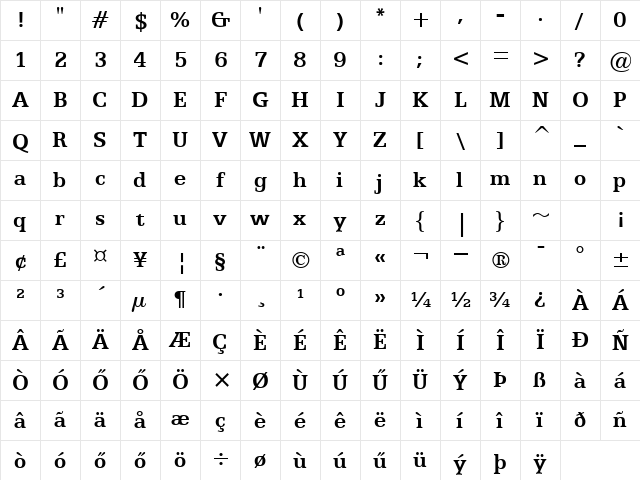
H_Egyptian 505 BT Bold
Complete H_Egyptian 505 BT Bold glyph index. Displaying only characters natively supported by H_Egyptian 505 BT Bold font.
Design Context for H_Egyptian 505 BT
H_Egyptian 505 BT features prominent, blocky serifs that give it a confident, grounded presence - equally at home in editorial settings and bold branding work. Its bold stroke weight gives it real presence on the page.
Pro Tip: Use H_Egyptian 505 BT for headlines and subheadings where its slab serifs can make an impression. It also holds up well in mid-size body copy thanks to its sturdy construction.